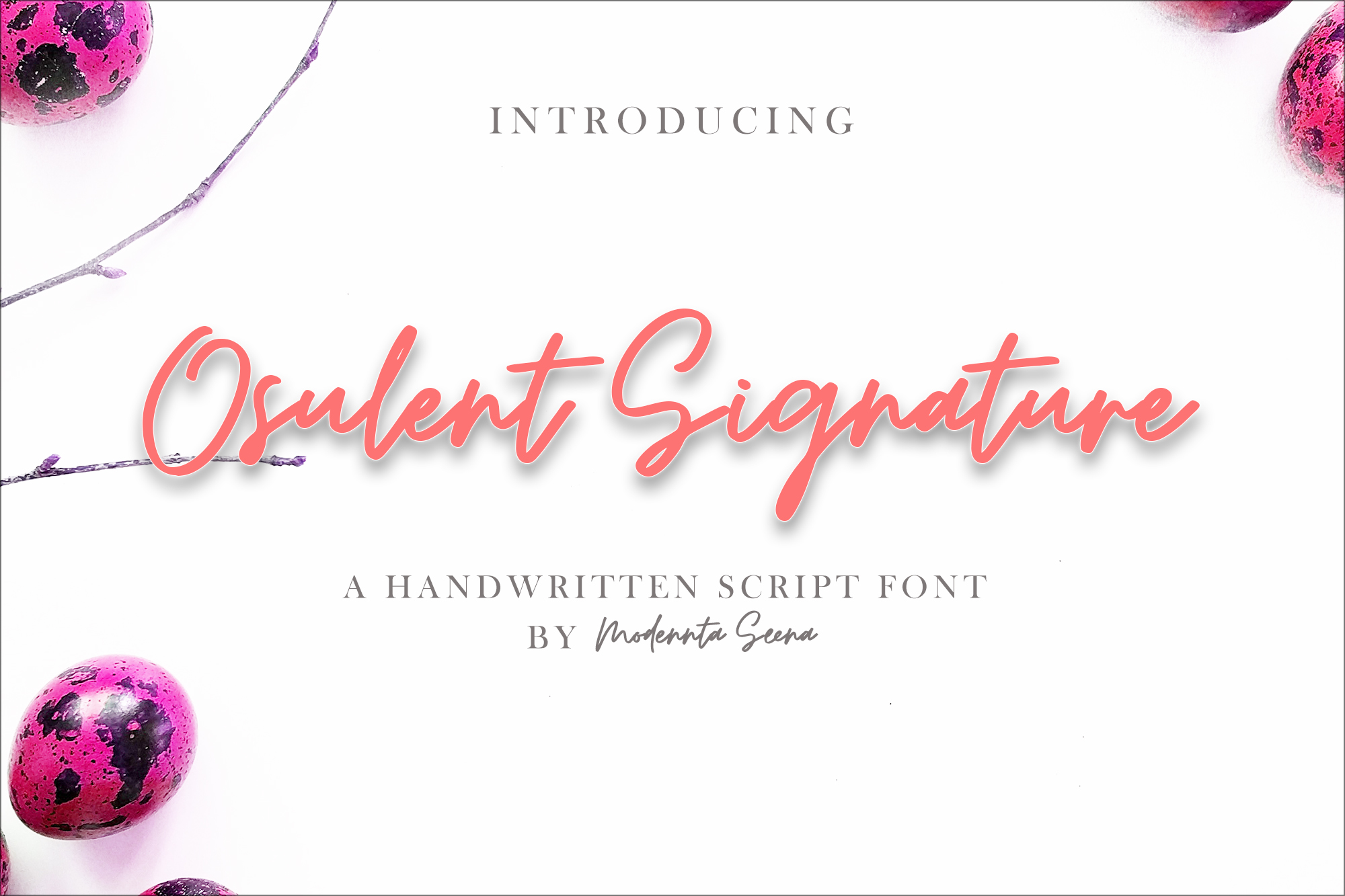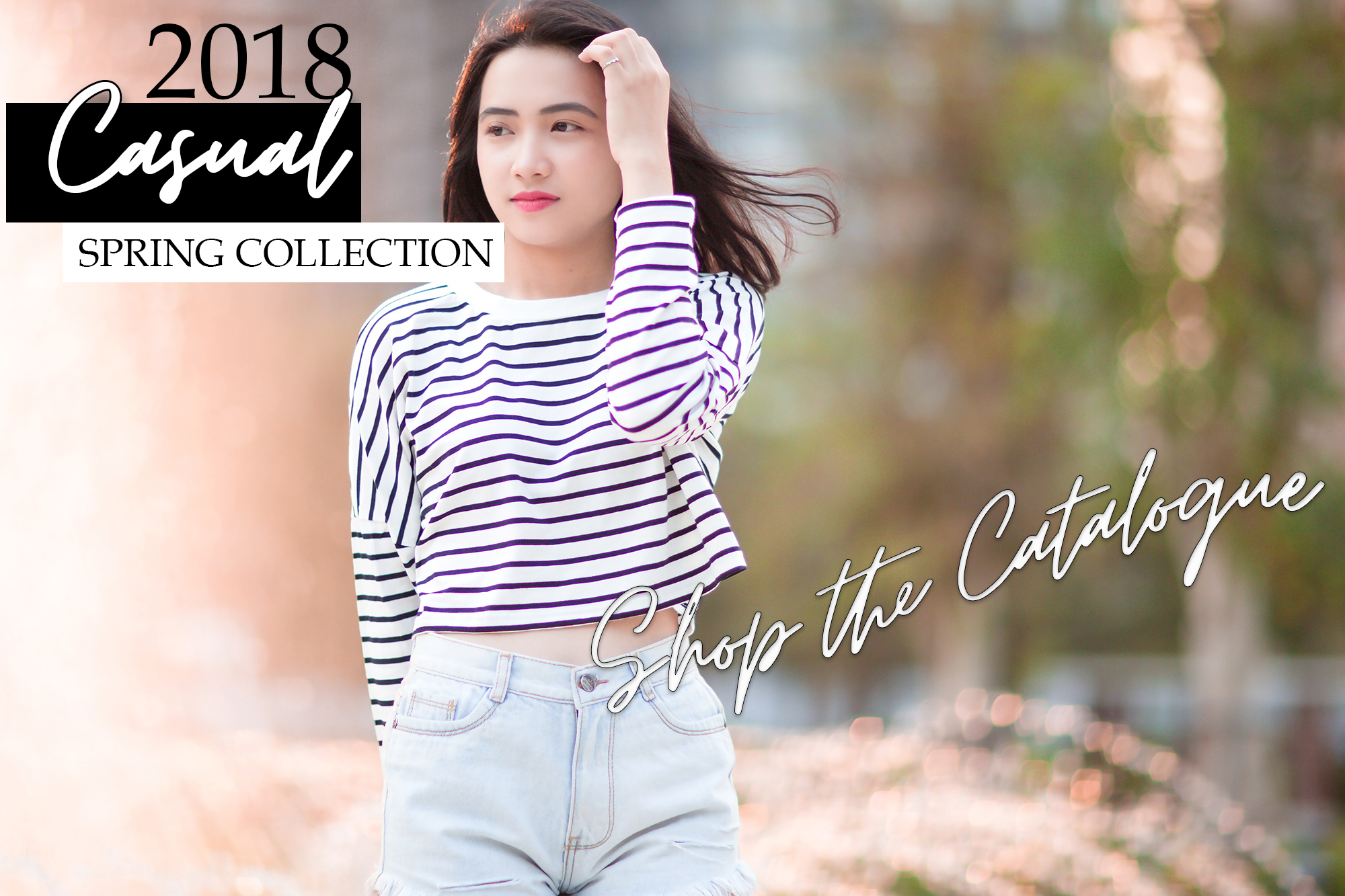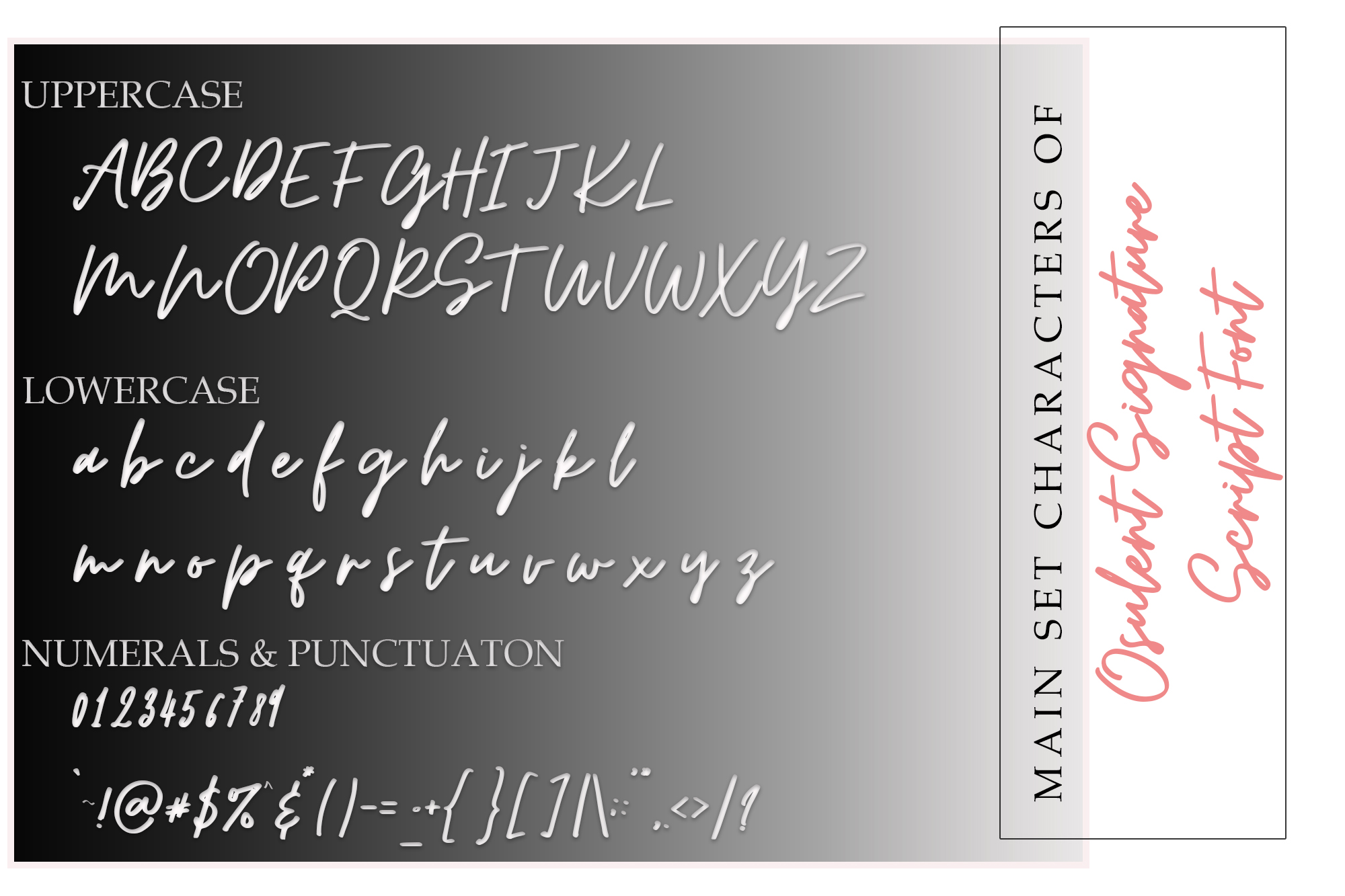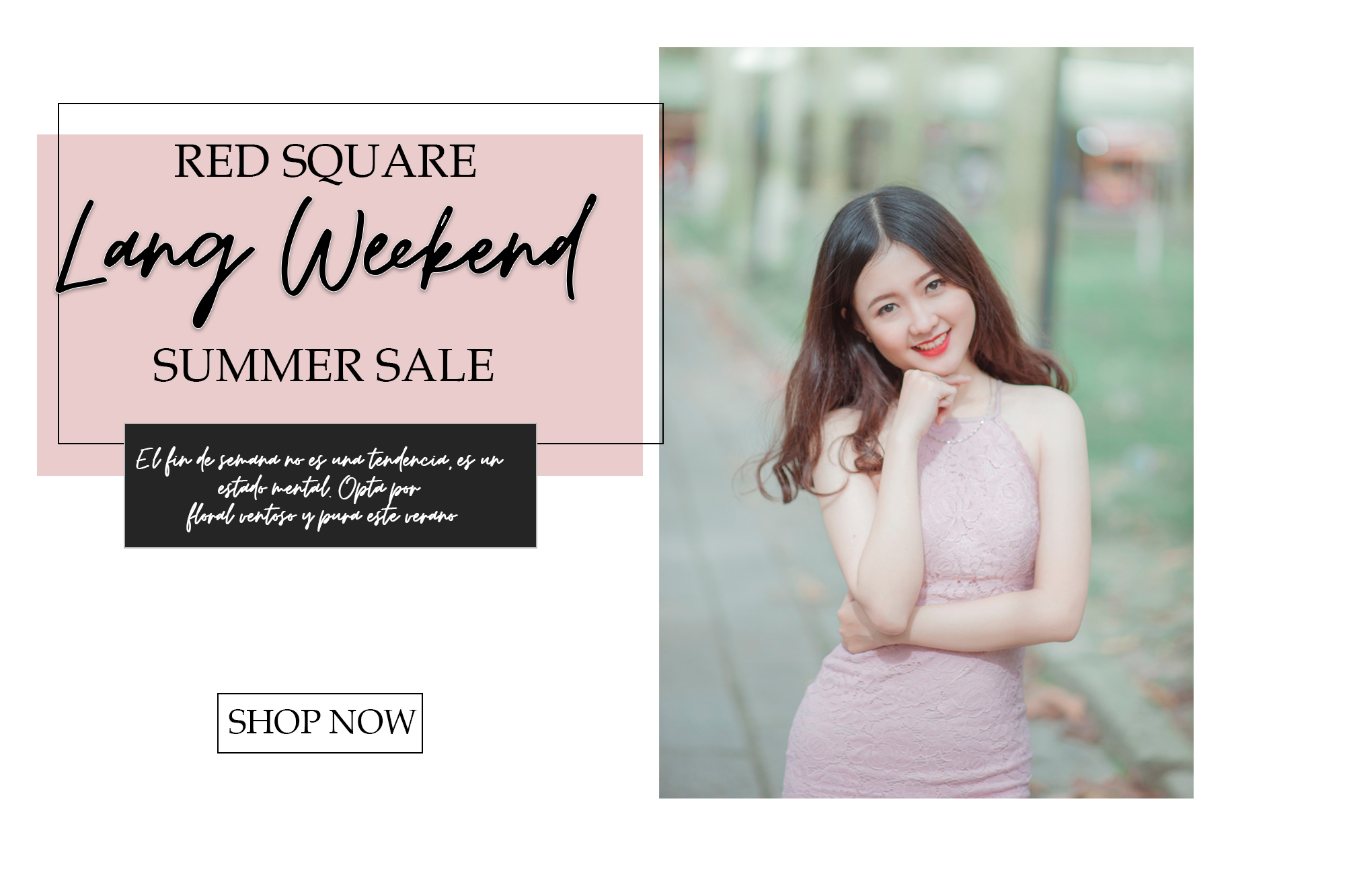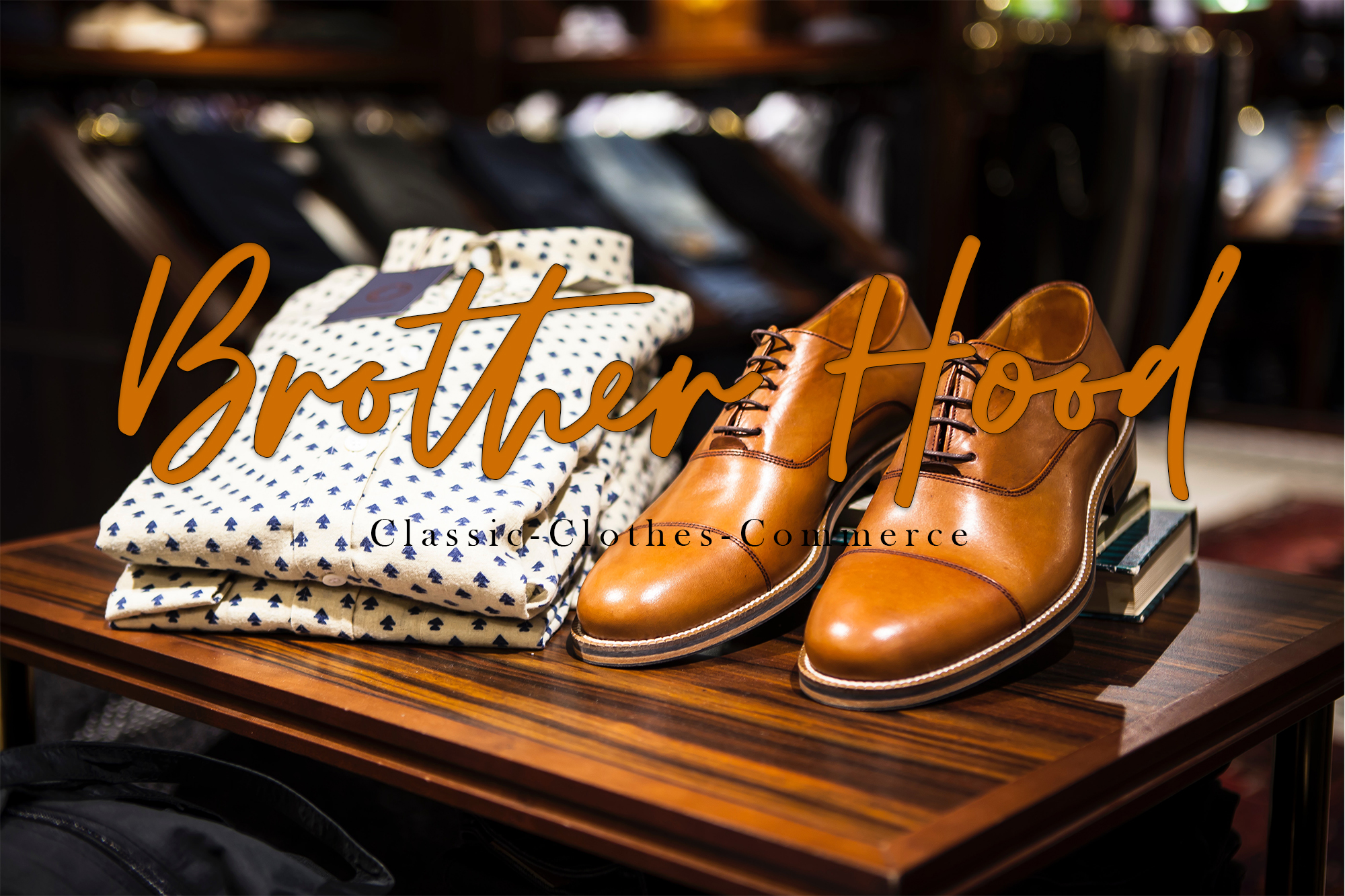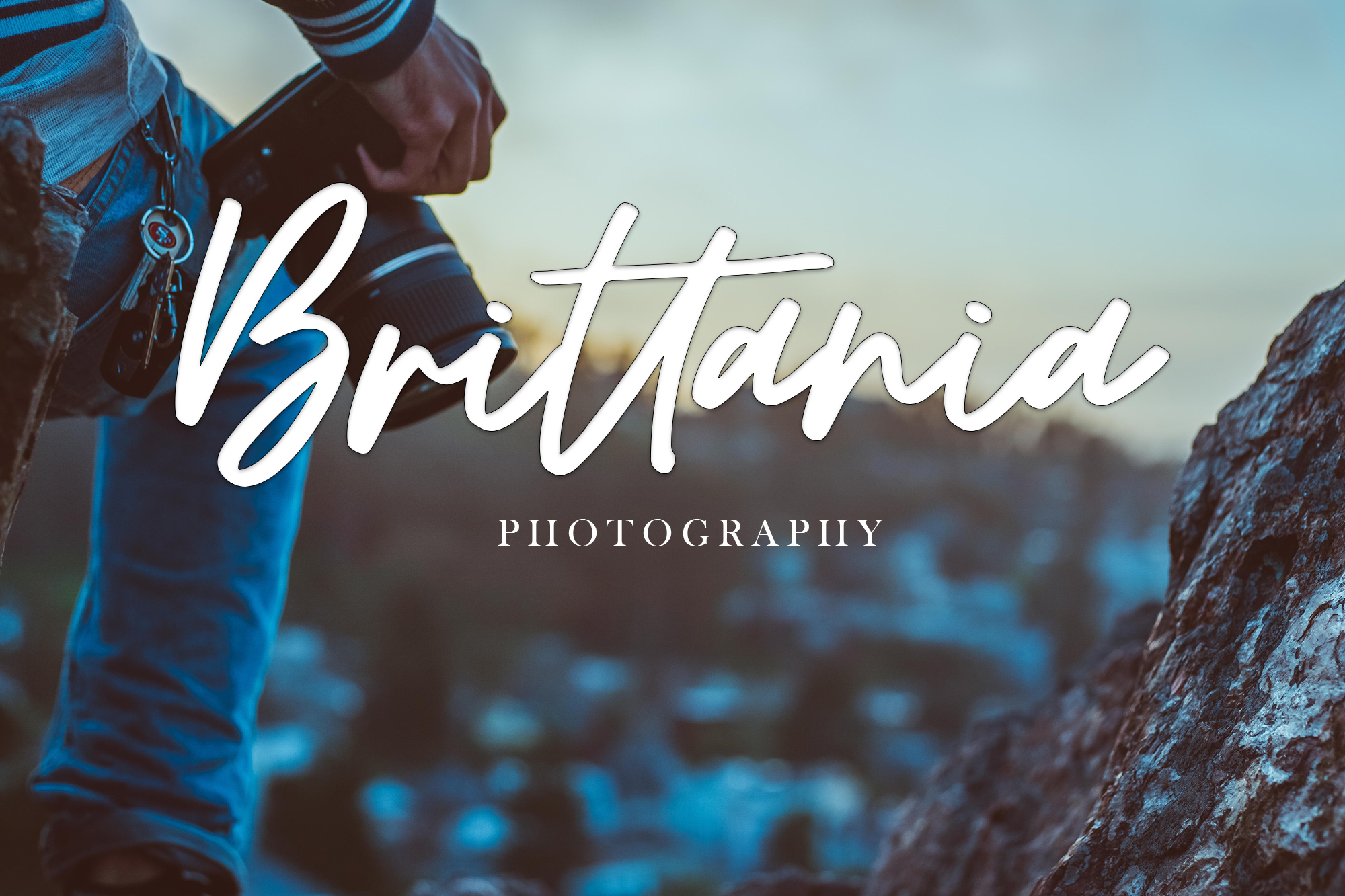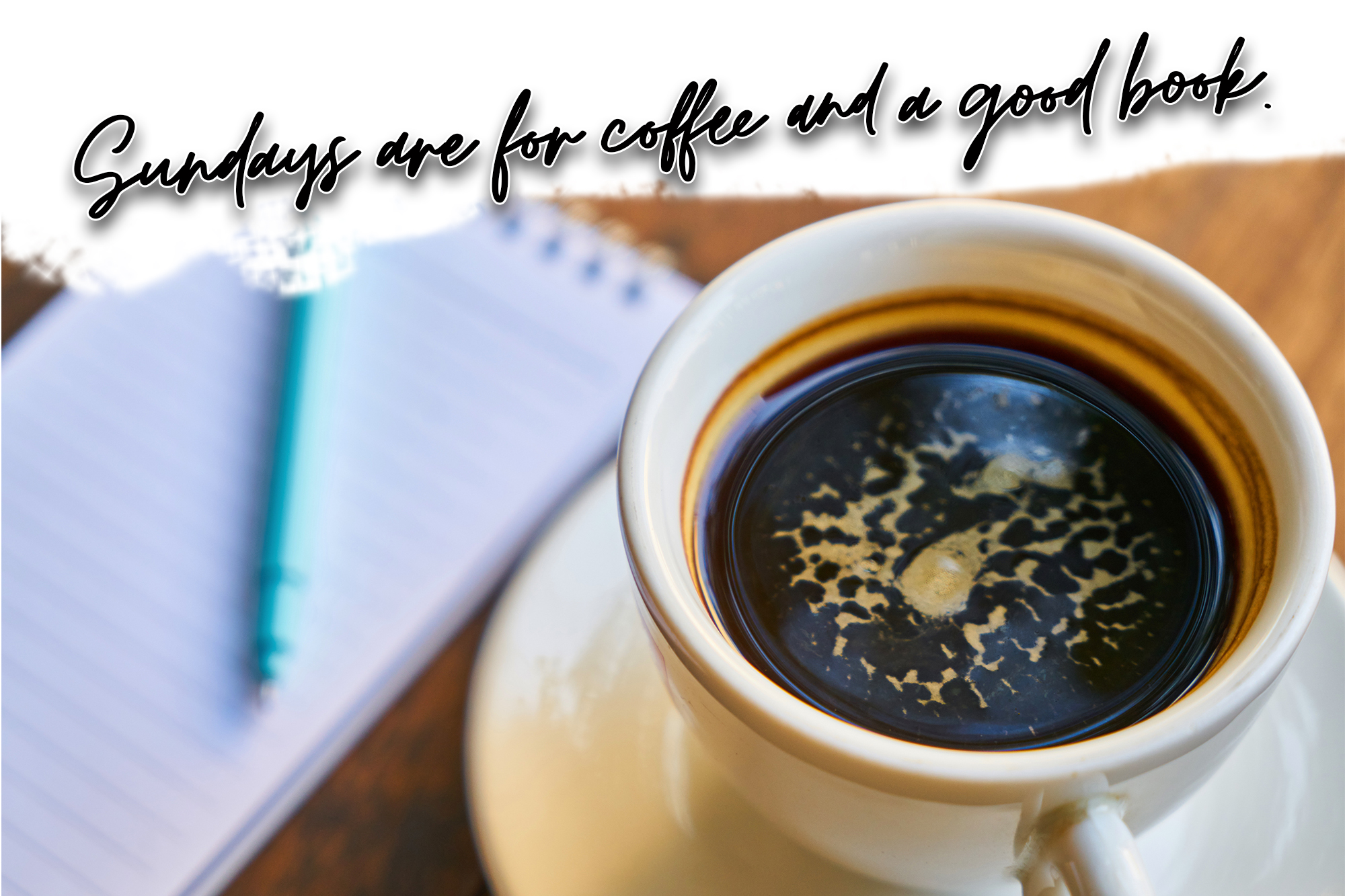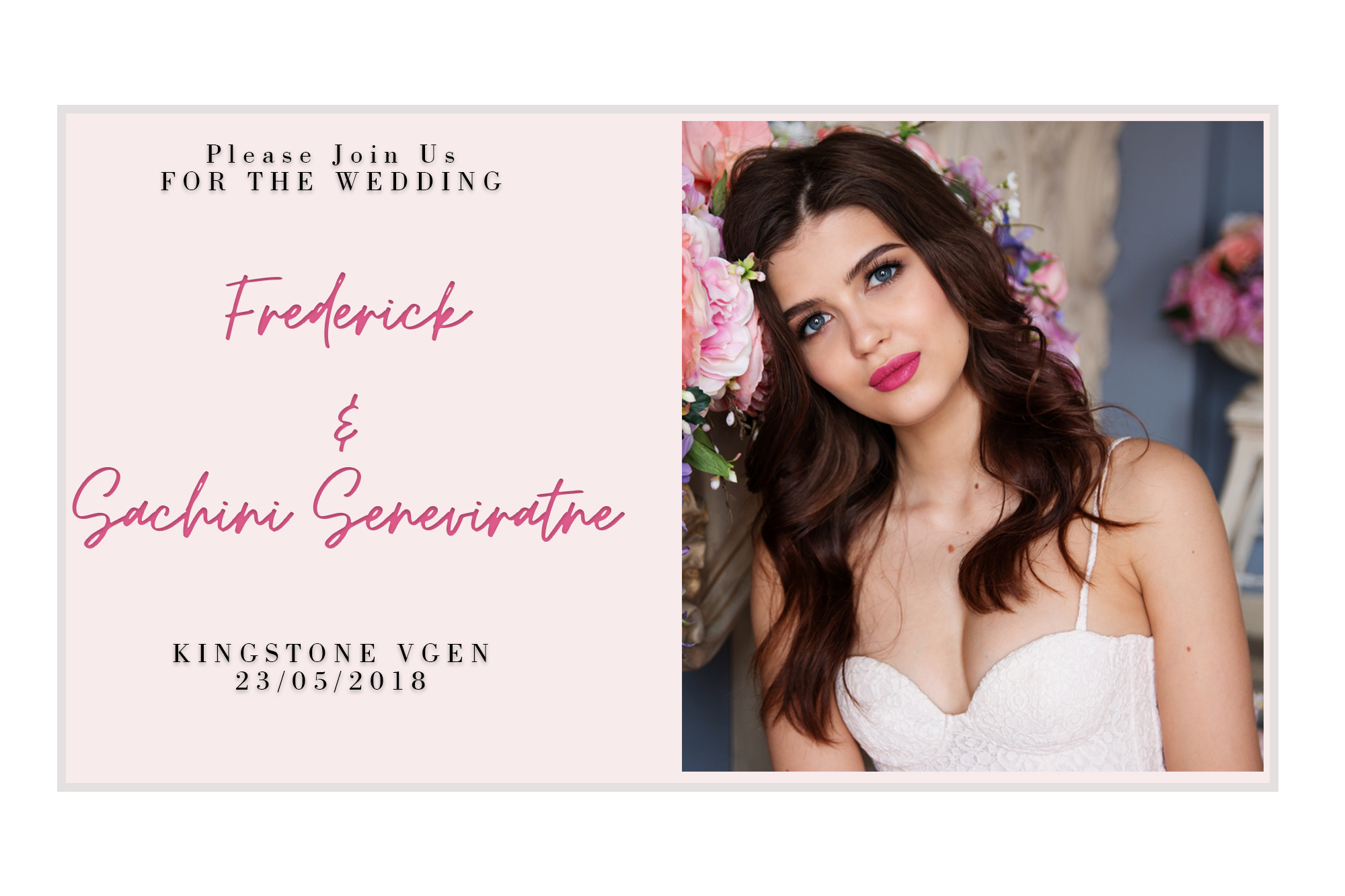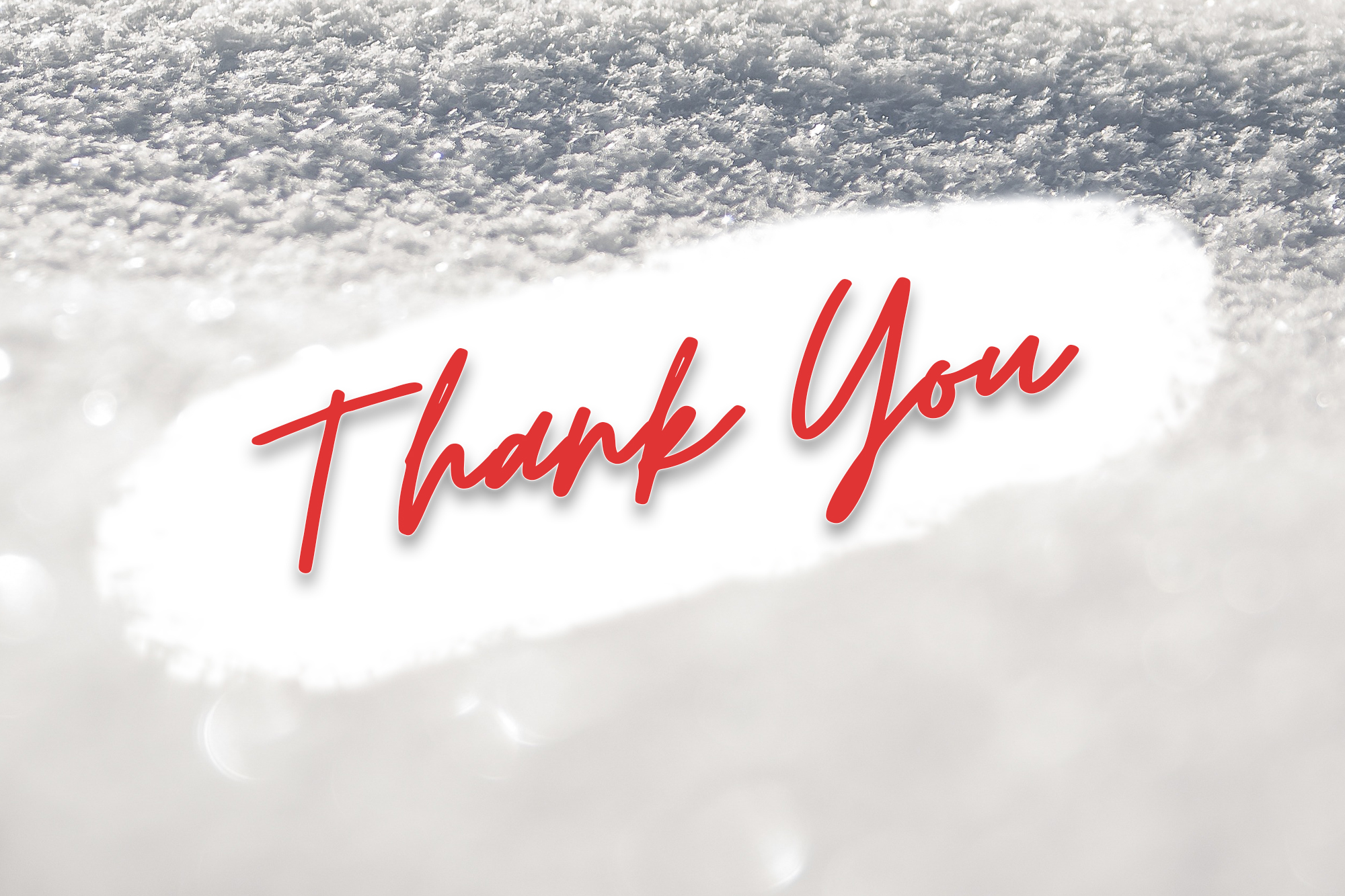
Osulent Font
About Osulent Font
Osulent is a modern signature script.
It’s the perfect font for creating an elegant, handwritten touch to your designs.